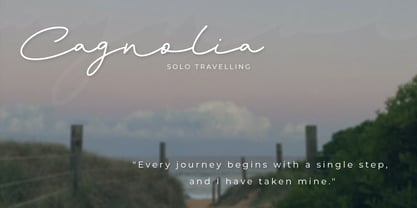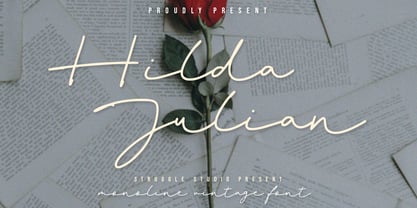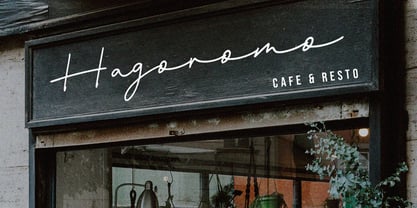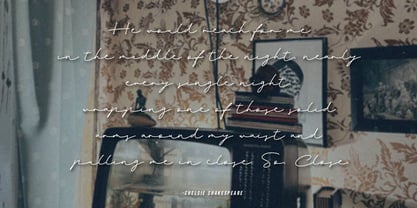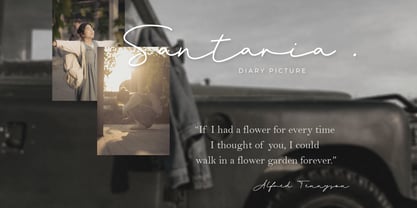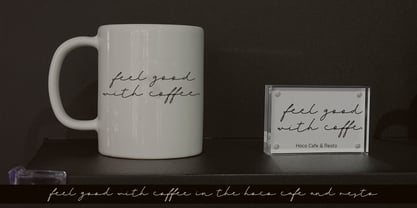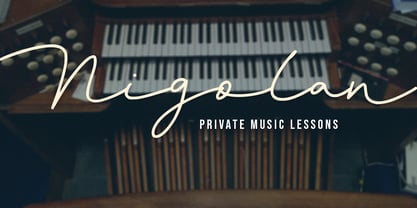
Hilda Julian
by Struggle Studio
The Hilda Julian Font Family was designed by Andri Kurniawan and published by Struggle Studio. Hilda Julian contains 1 styles. More about this family
Hilda Julian is a vintage monoline script font designed to give an elegant, and classic feel. With a signature-like handwriting appearance, this font is perfect for your branding, boutique logo designs, wedding invitations, photography watermarks, and designs that require a feminine and exclusive touch.